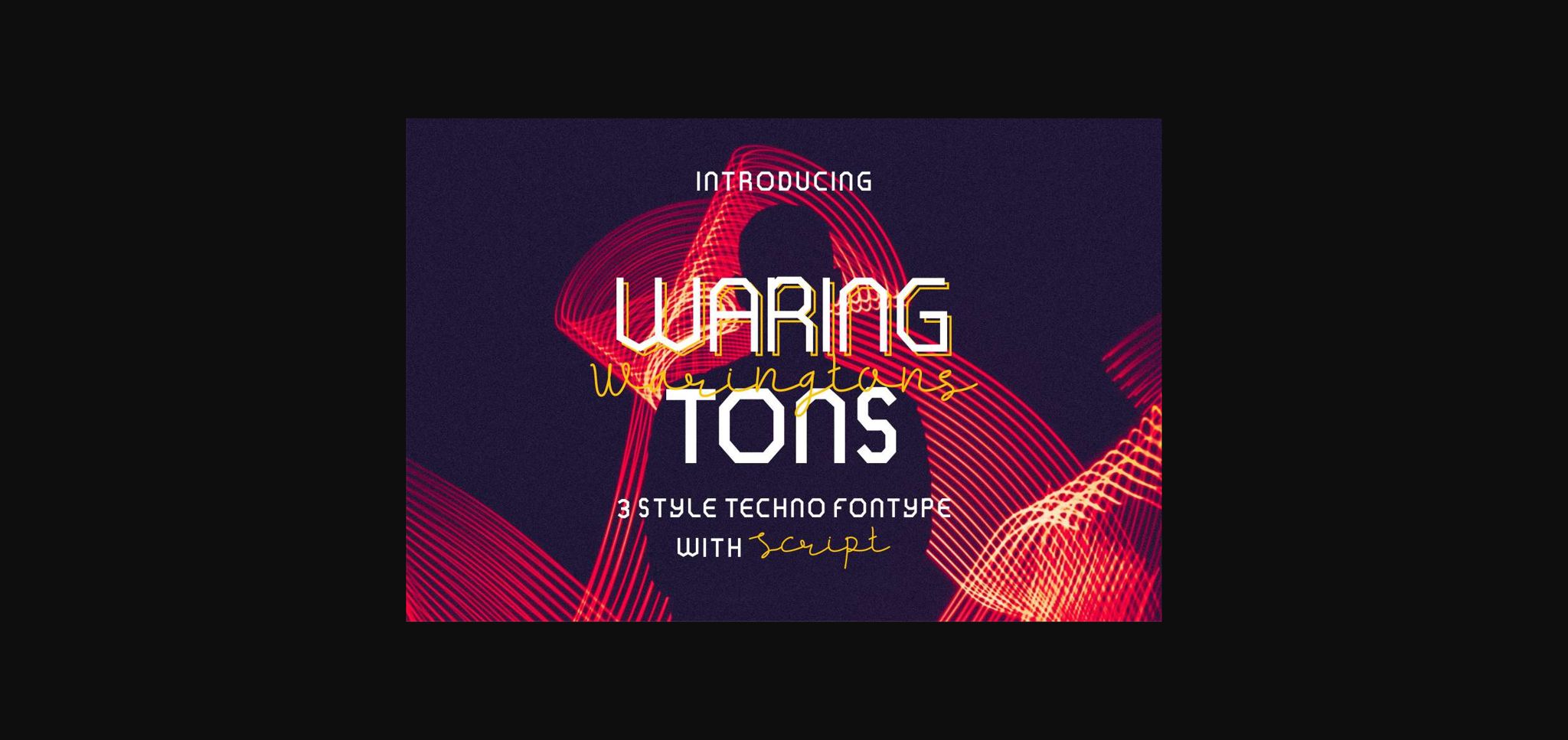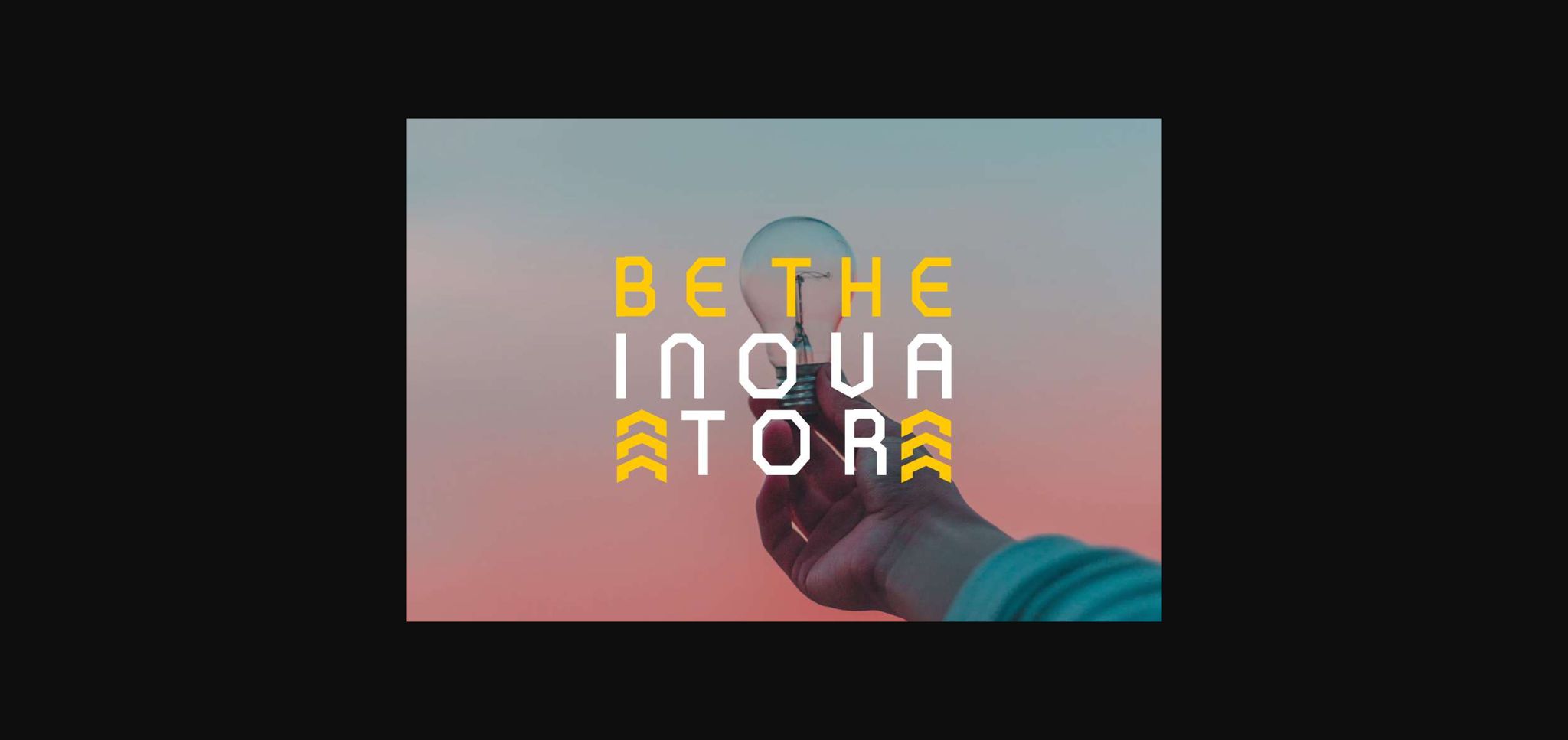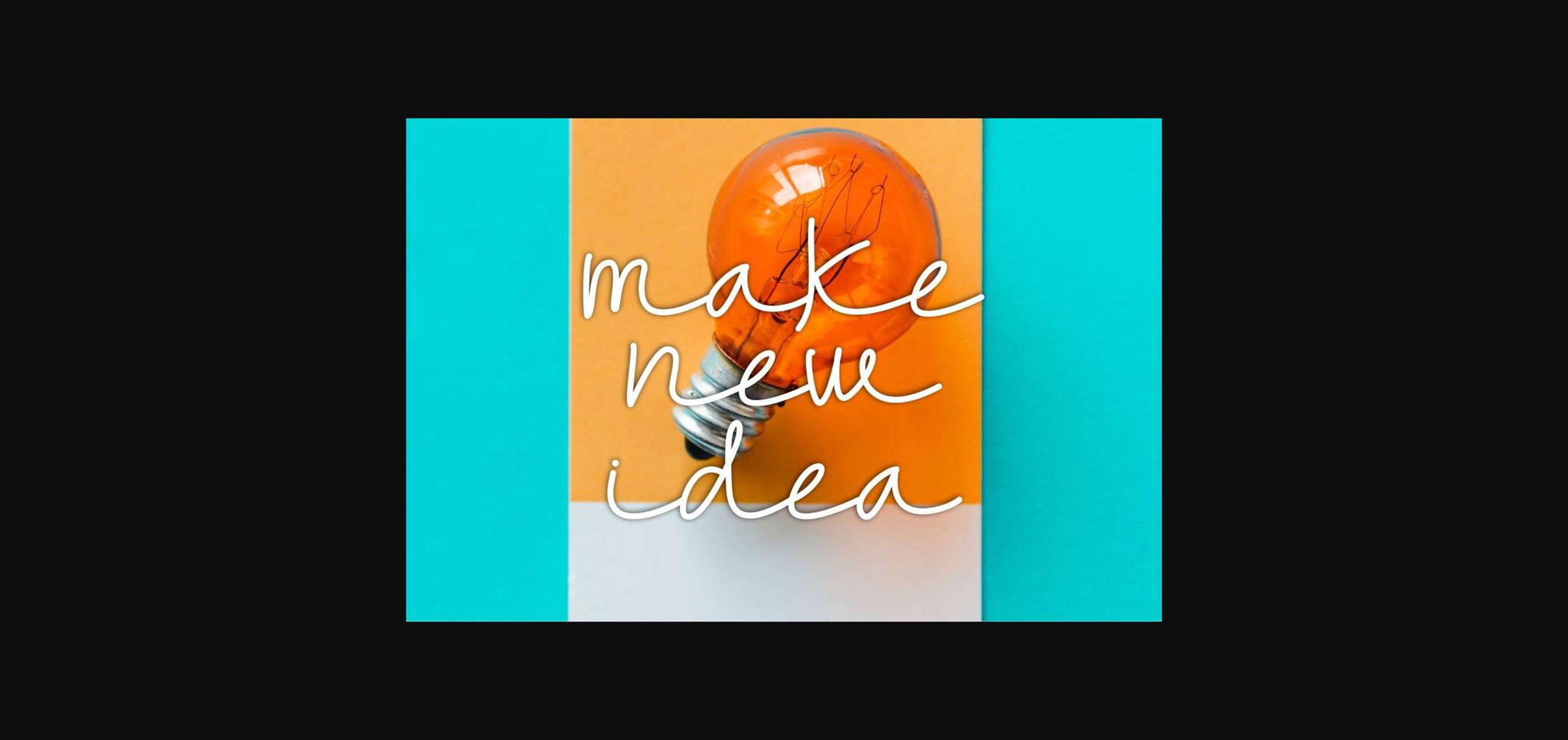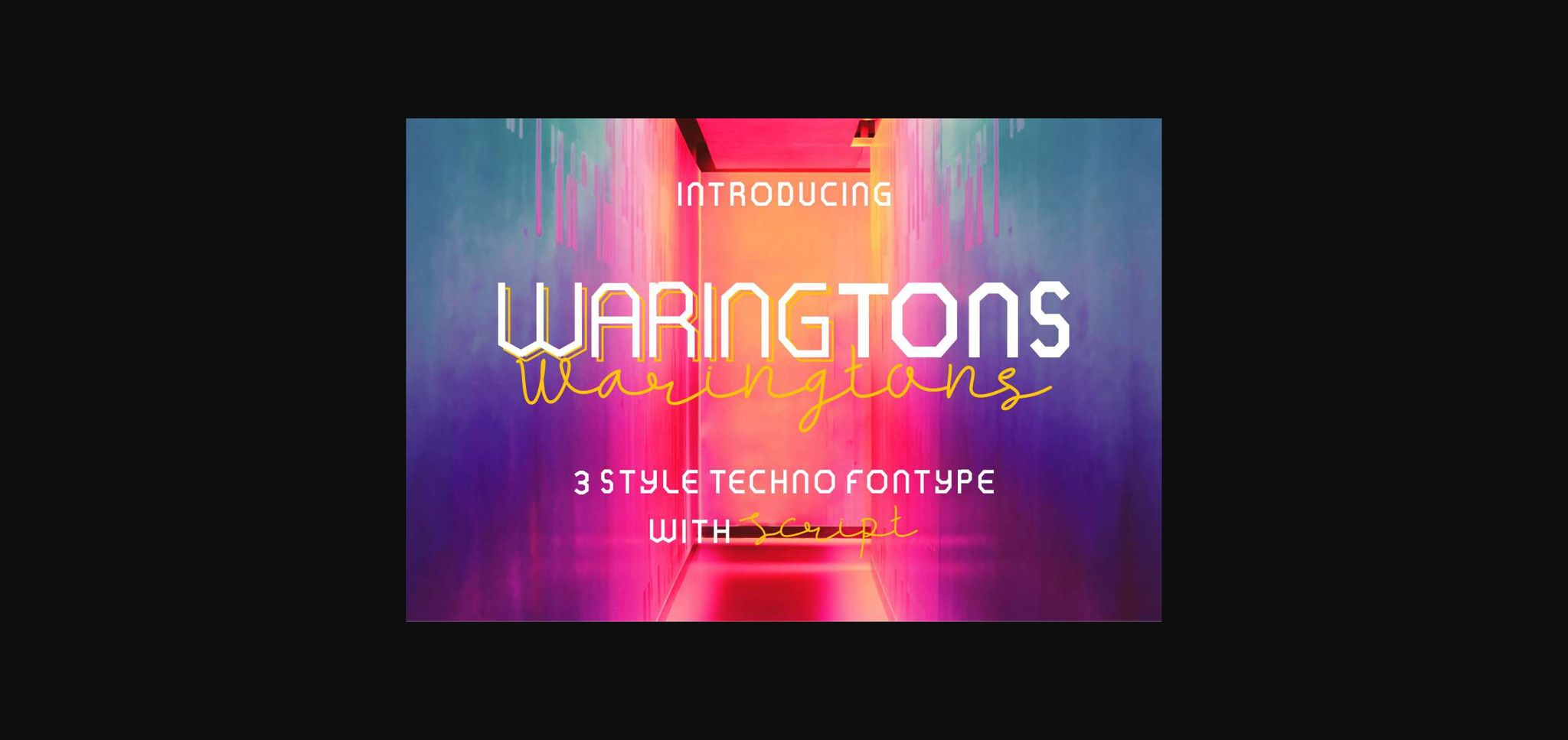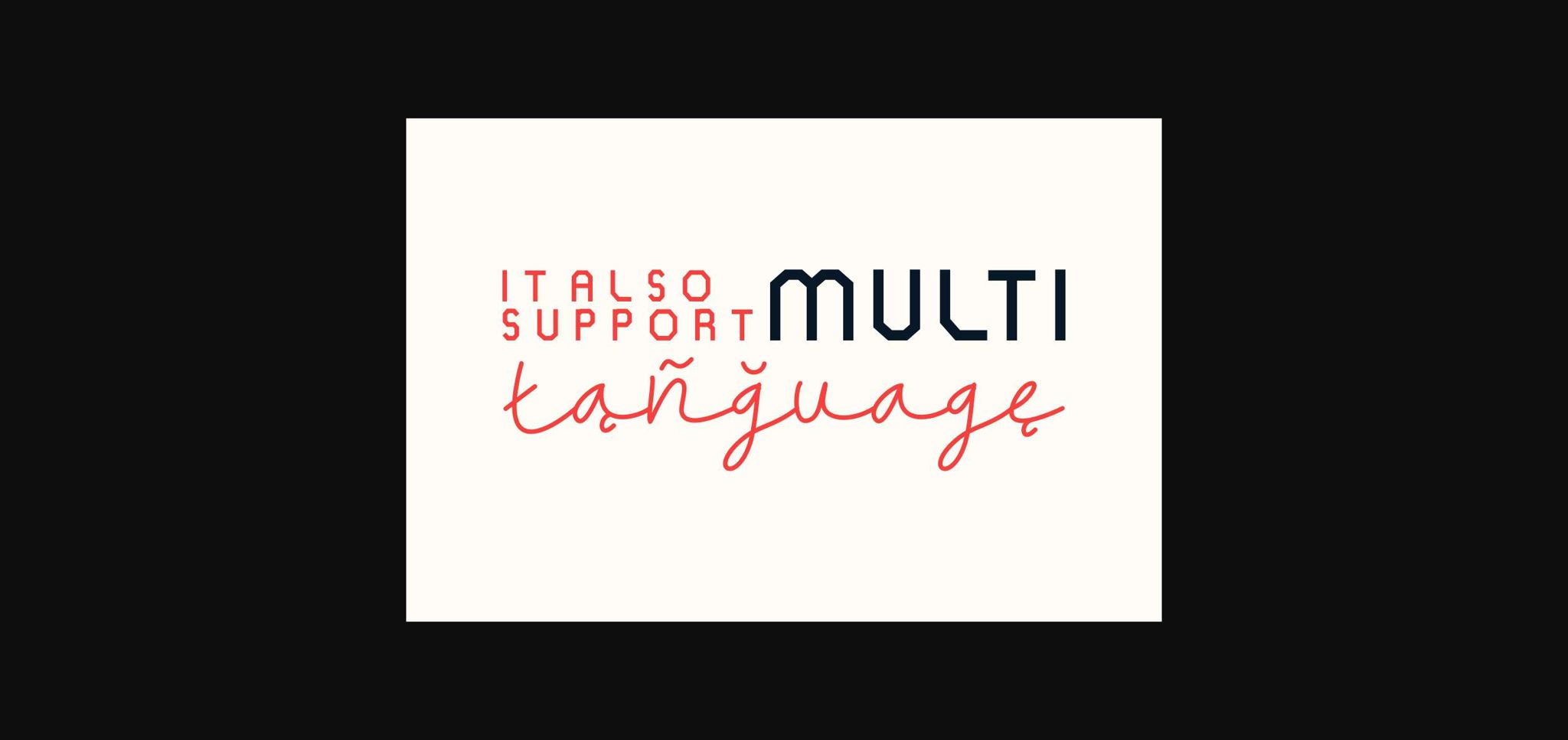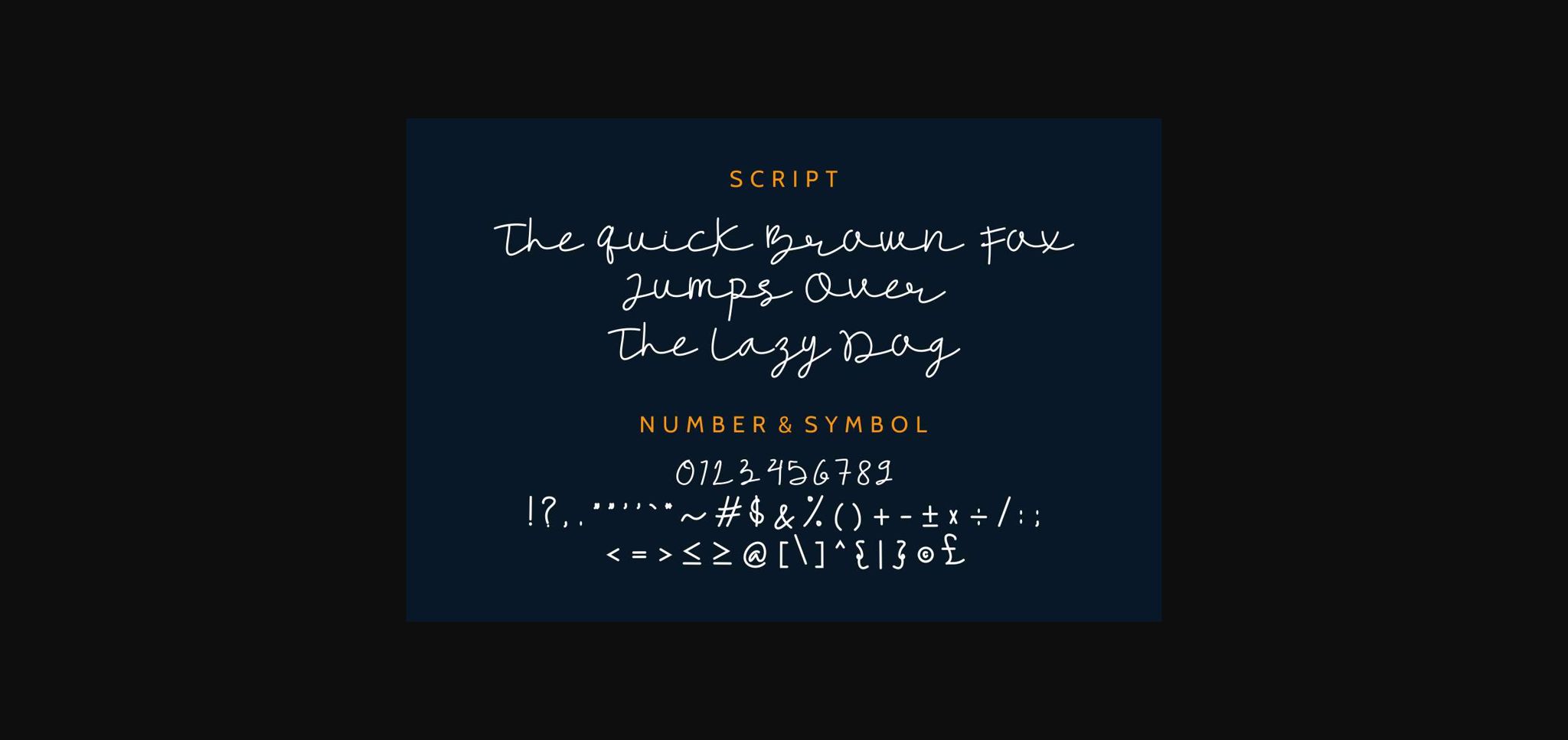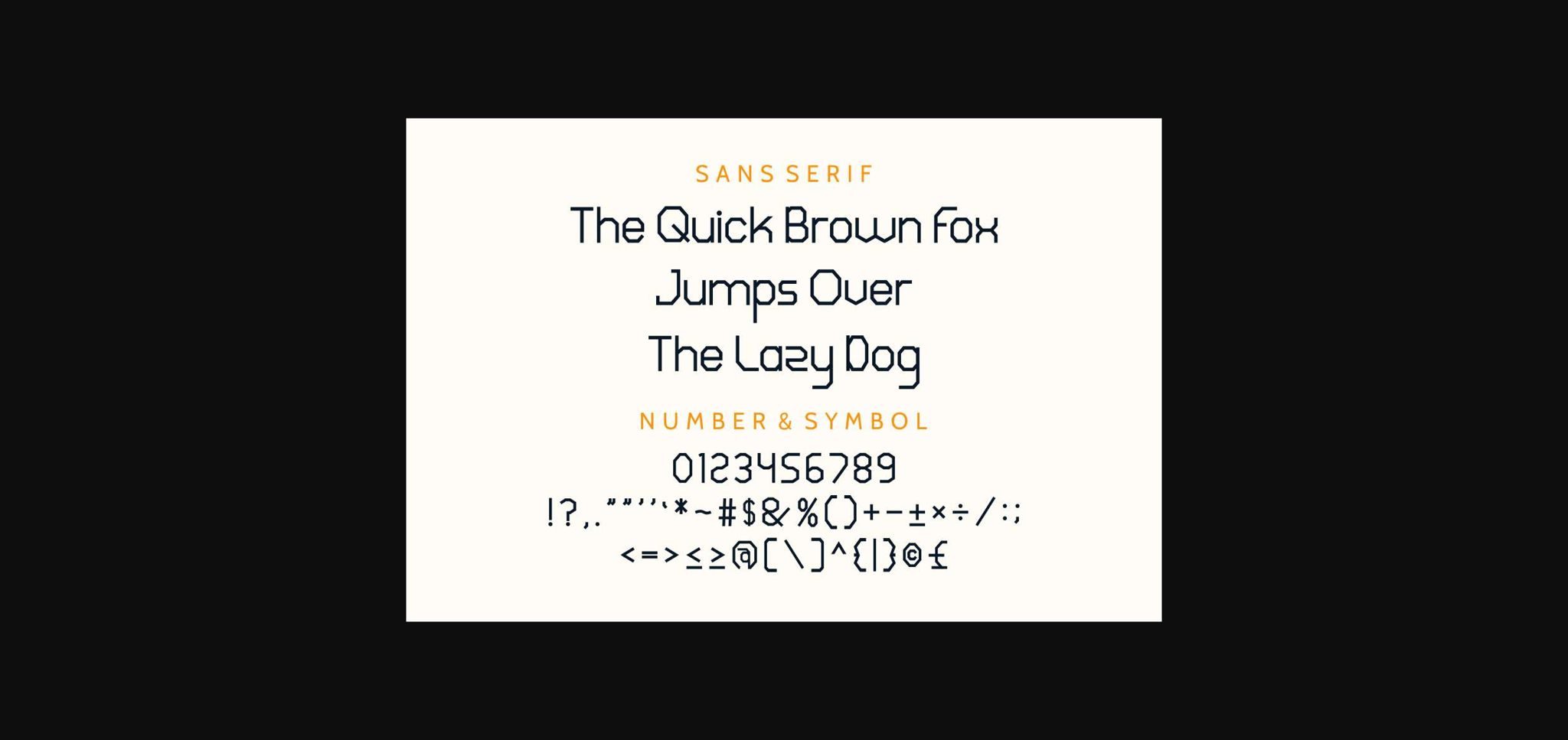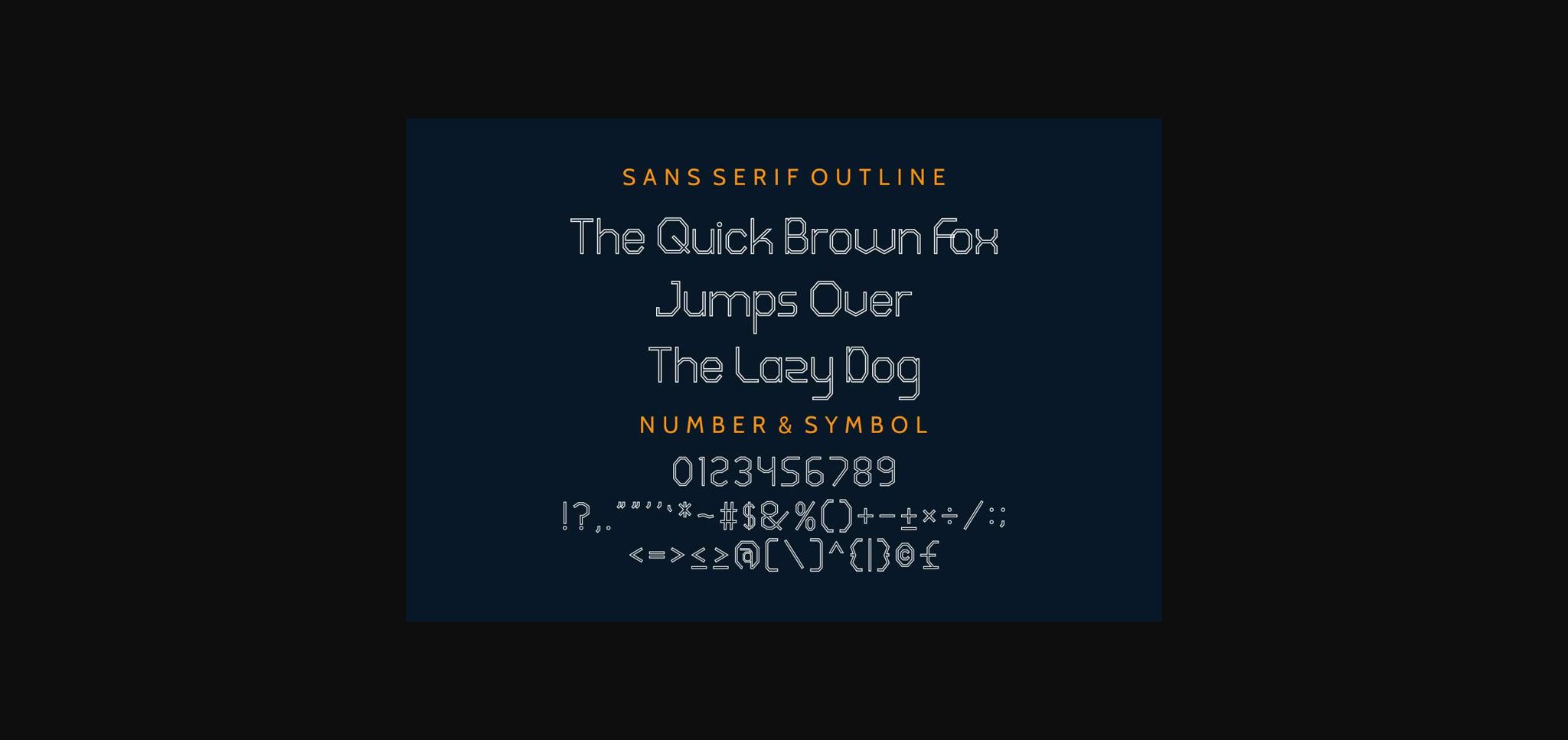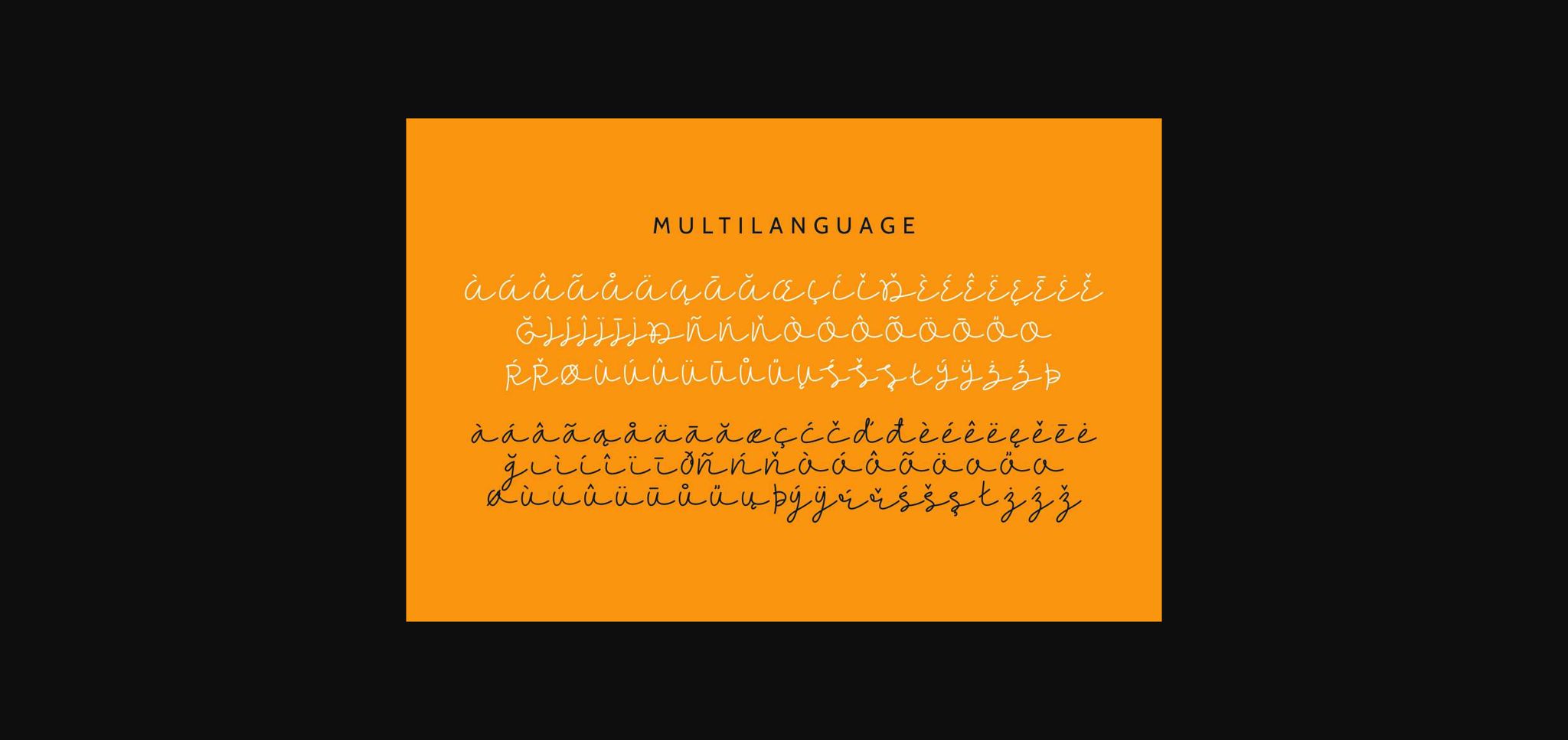
Waring Tons Font
About Waring Tons Font
Waring Tons is a storng and modern font family consisting of 4 fonts styles : Regular, Bold, Outline and Handwritten. Get creative with its different styles, and create stunning results!